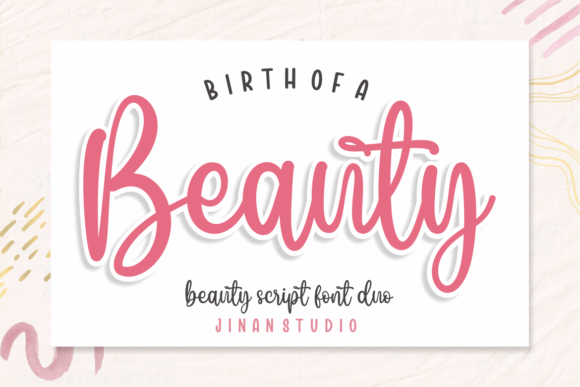
Step into the realm of elegance and grace with 'Birth of a Beauty Font,' a captivating script typeface that breathes life into your digital expressions. Experience the fusion of timeless beauty and modern aesthetics as this font dances across your screens, leaving a trail of visual enchantment.
With its sweeping curves and delicate strokes, 'Birth of a Beauty Font' is an ode to exquisite craftsmanship. Each letterform is meticulously designed to evoke a sense of romance and sophistication, making it the perfect choice for creating heartfelt messages, enchanting invitations, and alluring branding designs.
Unleash your creativity and let 'Birth of a Beauty Font' transport you to a world of sheer artistry. Whether you're designing a Christmas poster that captures the magic of the season or crafting a wedding invitation that exudes timeless elegance, this font will elevate your creations to new heights of beauty and refinement.
Immerse yourself in the limitless possibilities that await you with 'Birth of a Beauty Font.' From heartfelt love letters to captivating social media posts, this font will add an enchanting touch to every word you write.
Join the ranks of discerning designers and creatives who have embraced the allure of 'Birth of a Beauty Font.' Elevate your digital presence and make a statement with a font that reflects your unique style and unwavering commitment to excellence. Embrace the beauty of expression and let your creations bloom with grace and elegance. Download 'Birth of a Beauty Font' today and embark on a creative journey like no other!